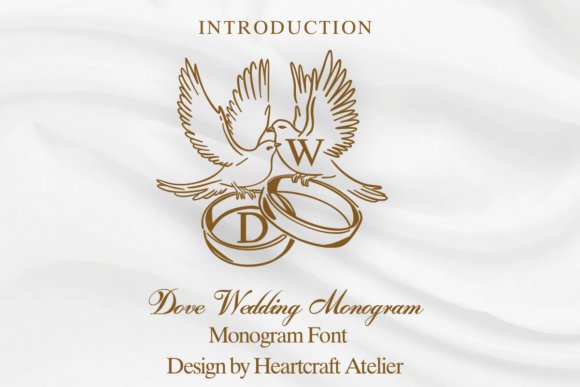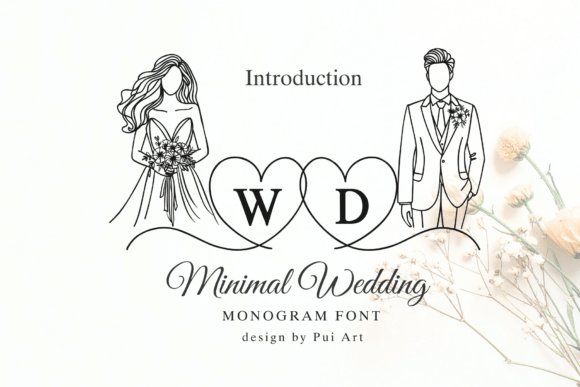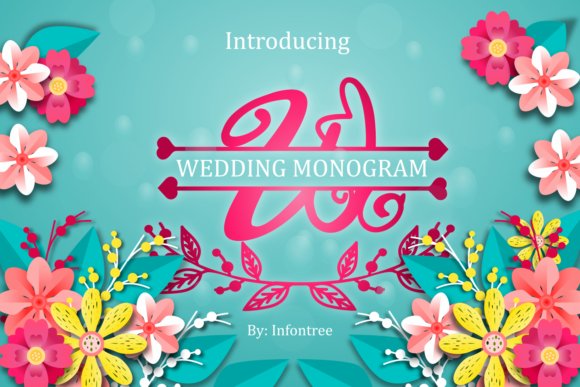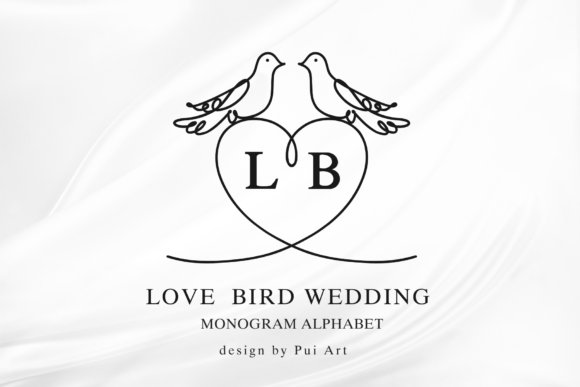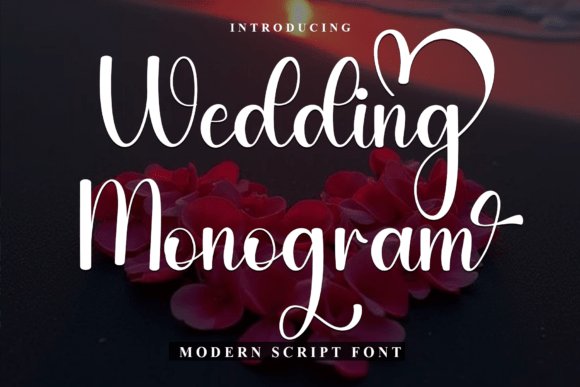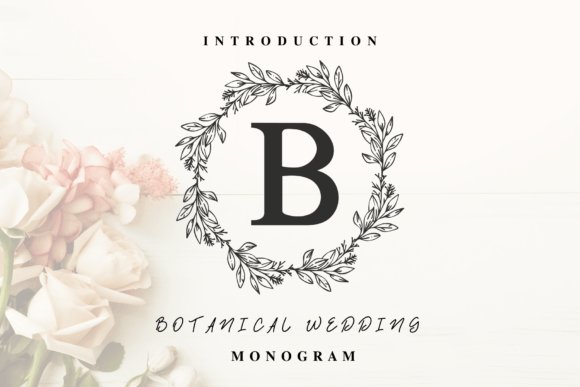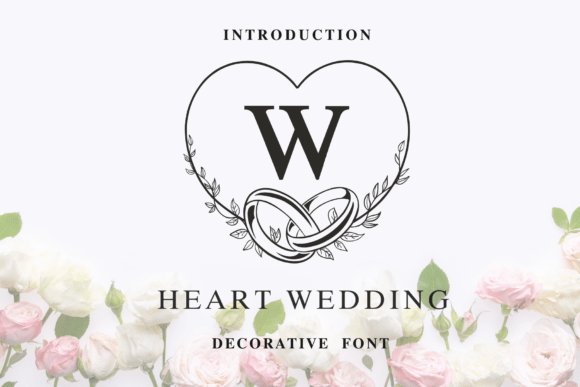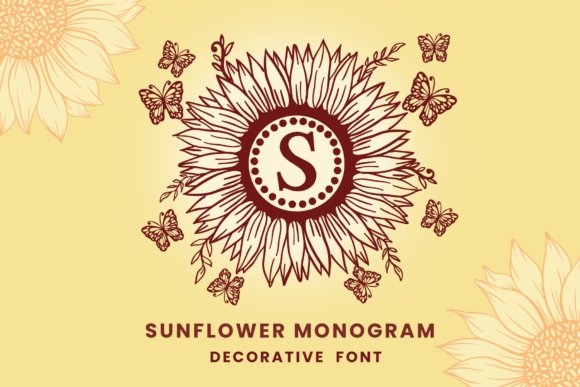
25 Elegant Wedding Monogram Fonts to Personalize Your Invitation Suite in 2026
wedding monogram fonts are the tiny design decision that instantly sets your wedding tone-romantic, minimalist, vintage, or modern-before guests even open the invitation. The right initials or ornamental script can make stationery feel bespoke and memorable.
In this guide you’ll find 25 carefully selected typefaces, including elegant scripts, refined serifs, hand-lettered marks, and minimalist initials, alongside pairing tips and real-use ideas for invitations, signage, favors, and digital announcements. Use these examples to match mood, season, and venue so your monogram becomes a cohesive part of the celebration.
1. Dove Wedding Monogram Font
Dove Wedding Monogram presents a graceful, hand-drawn script ornamented with subtle dove motifs and tasteful swashes that feel both intimate and ceremonial. The set supplies alternate initials, discretionary ligatures, and frame-ready ornaments so you can craft layered crest designs; this versatility makes it a top pick among wedding monogram fonts for suites that require foil stamping, engraving, or laser-cut details without losing finesse at small sizes.
Functionally it ships in vector and OTF formats with crisp outlines for letterpress, digital prints, and cut files-ideal for RSVP cards, wax seals, favors, and signage. Pair the flowing initials with a restrained sans or thin serif for body copy to balance romance with legibility, and use the dove elements as repeating motifs across menus, programs, and social templates.
My Recommendation: I’d choose Dove for projects where romance must feel handcrafted but remain elegant-think intimate invitations, engraved rings boxes, and embossed menus. The integrated dove ornaments give a distinctive signature without overwhelming the text, and the alternates make it easy to customize initials into a unique emblem. It’s especially useful when you need a design that translates cleanly from digital mockups to foil and laser-cut production.
2. Minimal Wedding Monogram Font
Minimal Wedding Monogram reduces ornamentation to its most refined essentials: a clean A–Z alphabet of paired initials with tiny outline illustrations of bride-and-groom silhouettes and heart-shaped counters that read clearly at small sizes. Its restrained geometry and consistent stroke weight make it excellent for modern stationery, logos, signage, and craft projects where subtlety and negative space communicate luxury without flourish.
The files typically include SVG and PNG exports suitable for Cricut and vinyl-cutting workflows, plus layered EPS for designers who want to recolor or isolate the tiny illustrations. Use it on belly bands, minimalist save-the-dates, and personalized favors; combine it with a light sans for addresses or a narrow serif for classic escort cards to preserve a polished, contemporary look.
My Recommendation: I recommend Minimal Wedding Monogram when your event aesthetic is modern, understated, or Scandinavian-inspired-its simplicity reads luxe without ornate detail. It’s perfect for DIY couples using cutting machines or designers building streamlined wedding brands. I especially like it for monochrome palettes and keepsake items where clarity and repeatability across media matter most.
3. Elegant Wedding Monogram Font
Elegant Wedding Monogram combines a refined, high-contrast serif with an ornate floral frame to create a heraldic initial that feels bespoke and luxurious. The package often includes a matching all-caps serif to mix with the monogram initials, plus decorative corner pieces that enable you to build crests and seals suited for premium invitations, programs, and boutique stationery suites.
This design excels in tactile print processes-letterpress, foil, and embossing-where the thin strokes and floral detailing can produce dramatic impressions. For contemporary usage, pair the monogram with muted palettes and generous white space; for a more traditional approach, stack names around the frame and add gold or deep-ink colors to amplify an heirloom quality.
My Recommendation: I’d reach for Elegant Wedding Monogram when designing upscale or formal wedding materials that demand a timeless emblem-think luxury hotel weddings, formal programs, or invitation suites for a classic venue. The ability to mix an all-caps serif with the framed initial makes it versatile for signage and print collateral. It’s my go-to when the brief calls for refinement, tactile finishes, and an air of enduring sophistication.
4. Wedding Monogram Font
Wedding Monogram condenses modern calligraphic charm into a single, hand-lettered family that feels both intentional and effortless; its flowing strokes and graceful terminals render initials with striking clarity. Among wedding monogram fonts this design stands out for its natural inked texture, generous swashes, and tasteful alternates that let you craft bespoke couple marks for invitations, signage, and keepsakes.
Take a few favorites into mockups with your color palette and paper textures, and test how they scale across invites, menus, and keepsakes. With the right wedding monogram fonts in place, your stationery will feel polished, personal, and perfectly on theme for 2026.